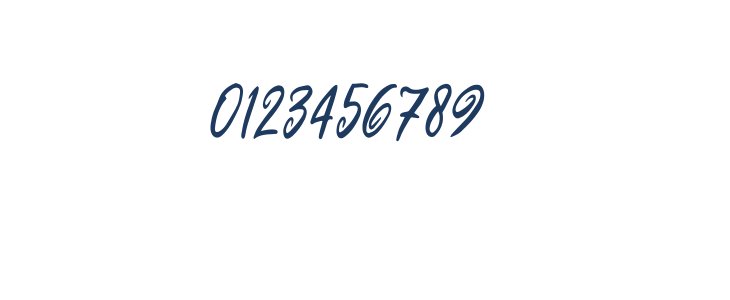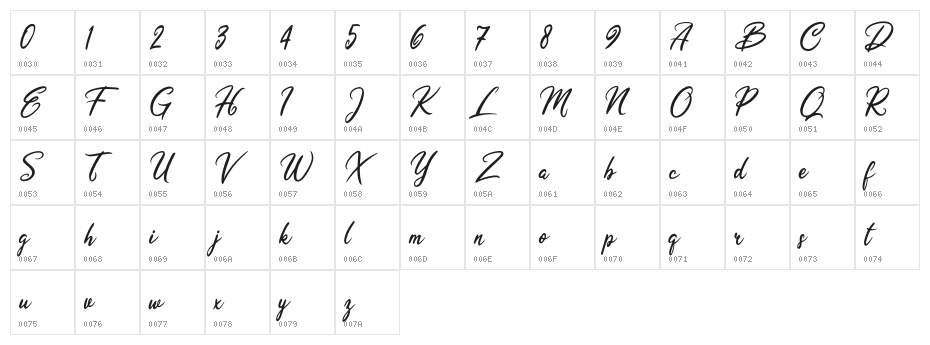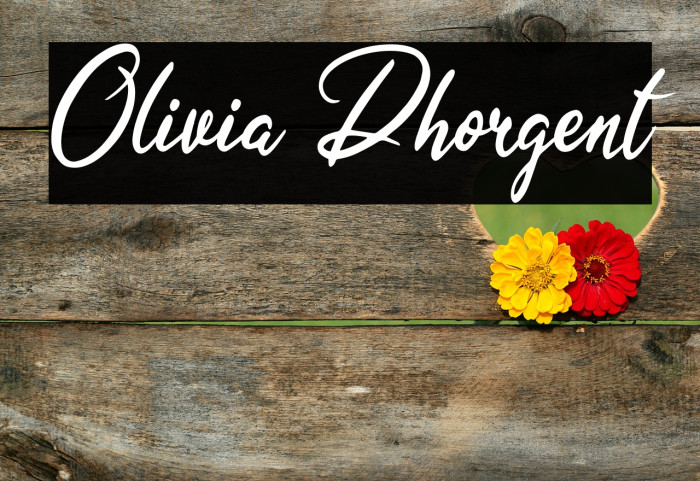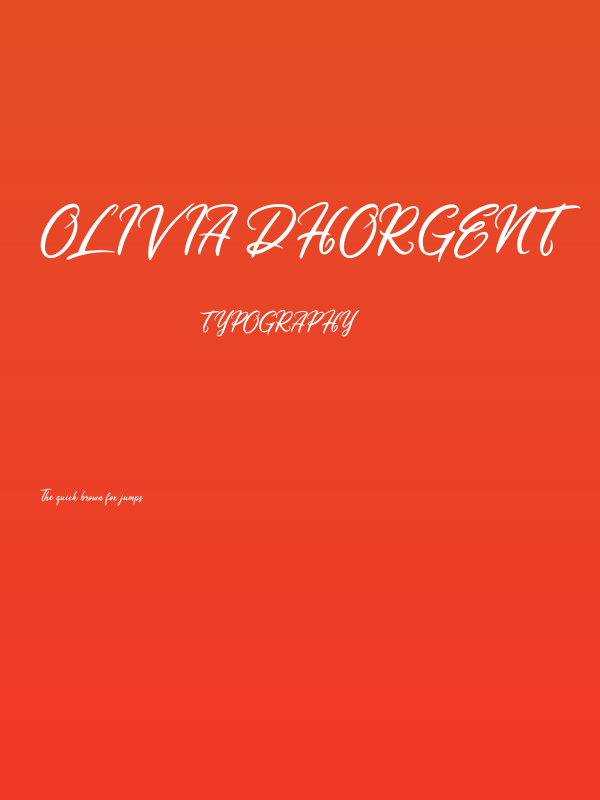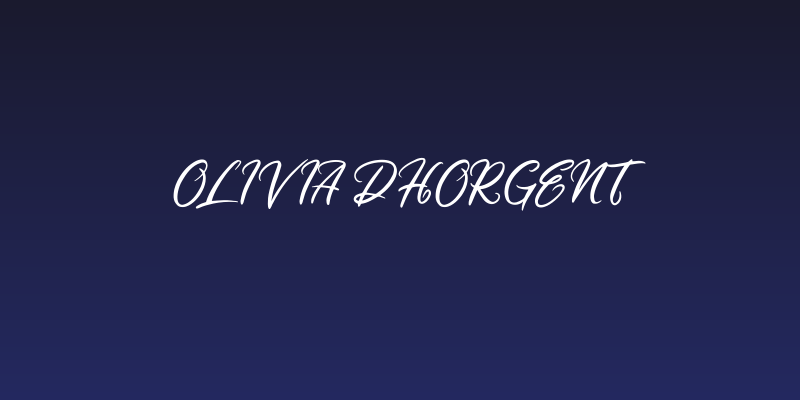
Olivia Dhorgent Font
Olivia Dhorgent Description
This font exudes elegance and fluidity, characterized by its cursive script style. The letters are connected, creating a seamless flow that is both sophisticated and artistic. The uppercase letters are slightly more embellished, with graceful loops and curves, while the lowercase letters maintain a consistent rhythm and balance. The numerals are designed to match the script style, with a touch of flair in their curves. This font is perfect for projects that require a touch of elegance and personal expression, such as invitations, greeting cards, and branding materials. Its decorative nature makes it stand out, yet it remains legible and stylish.
| Overall Style | Elegant, Decorative |
| Proposed Projects | Ideal for wedding invitations, greeting cards, personal branding, and elegant signage. |